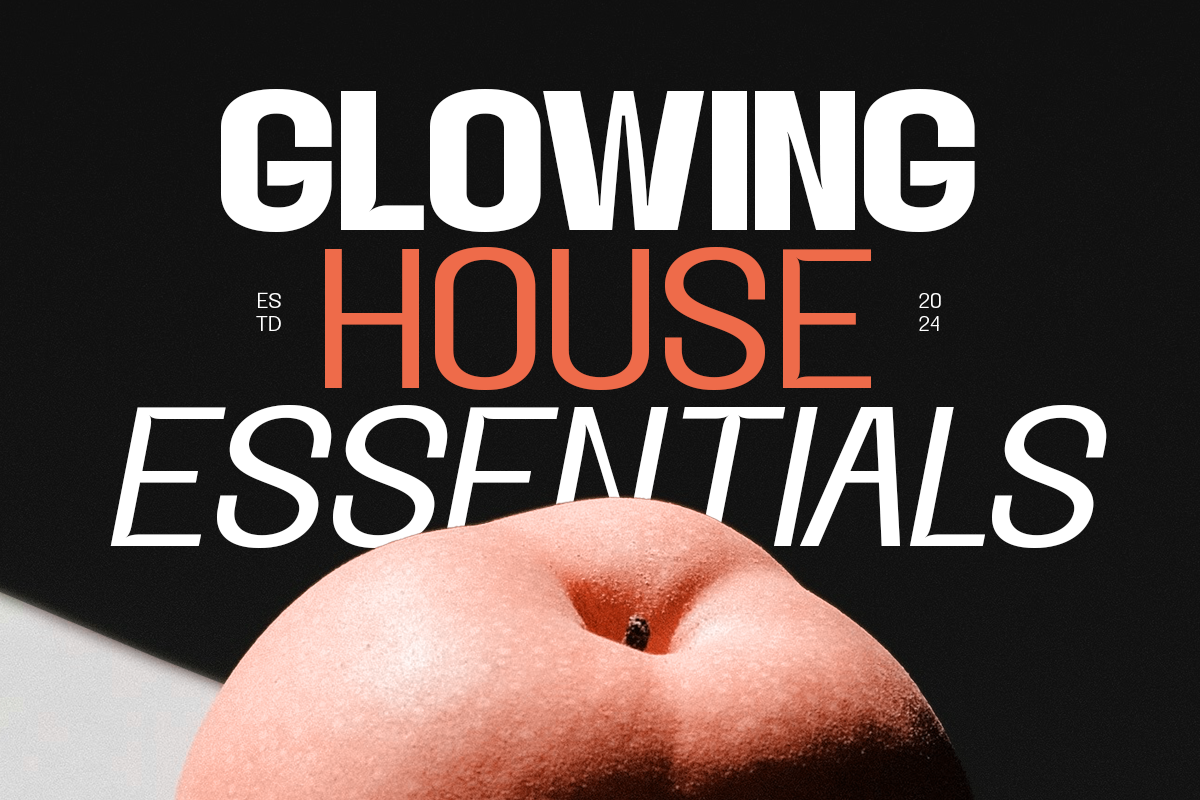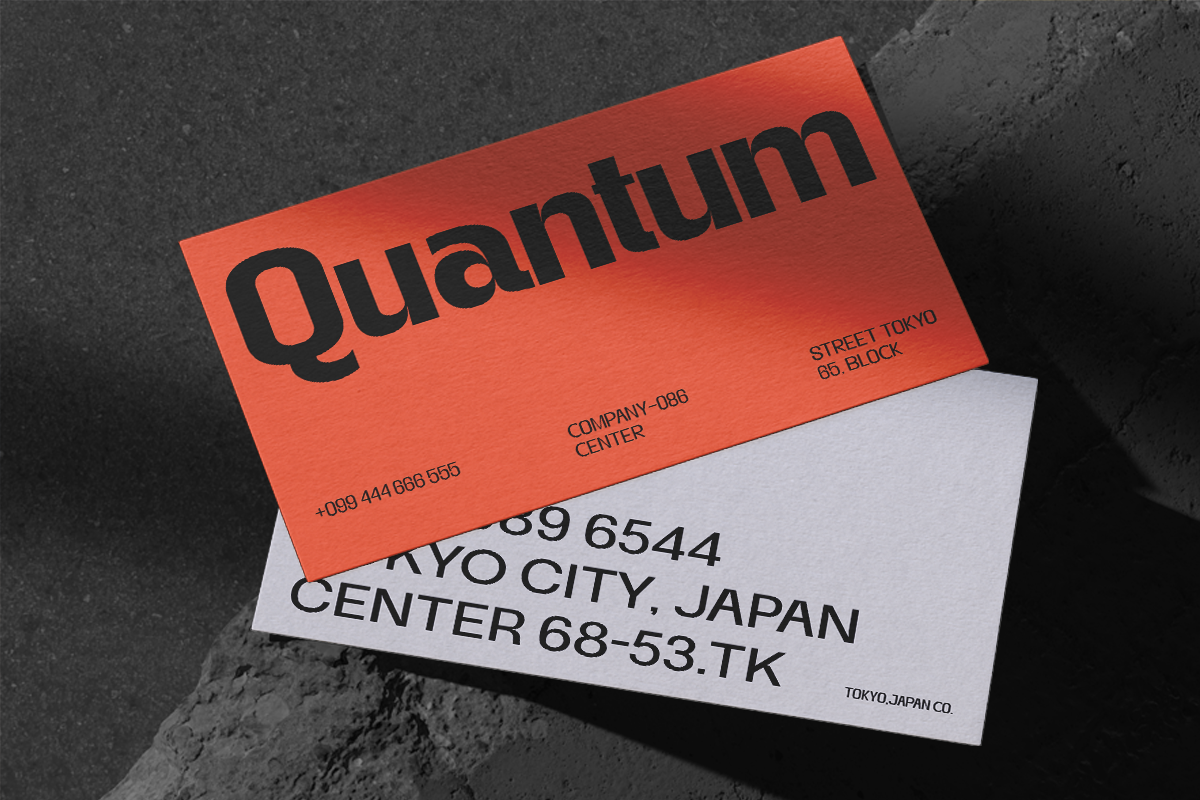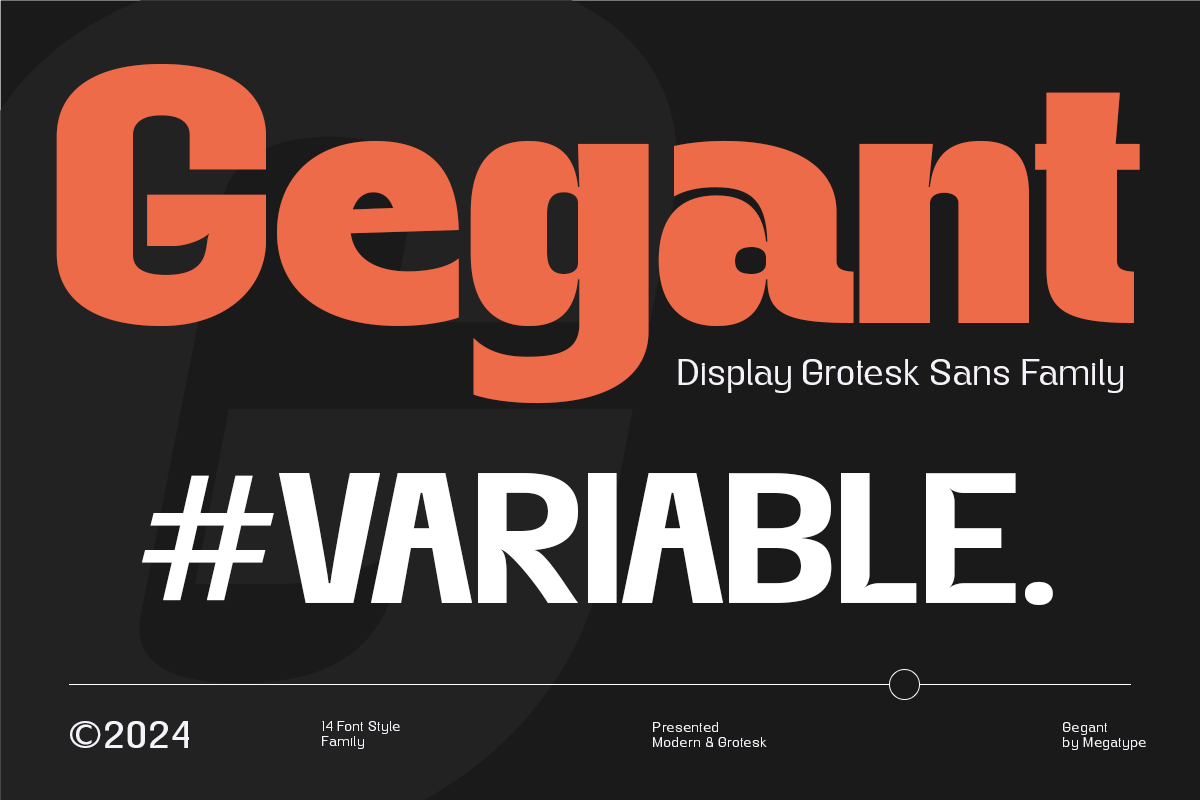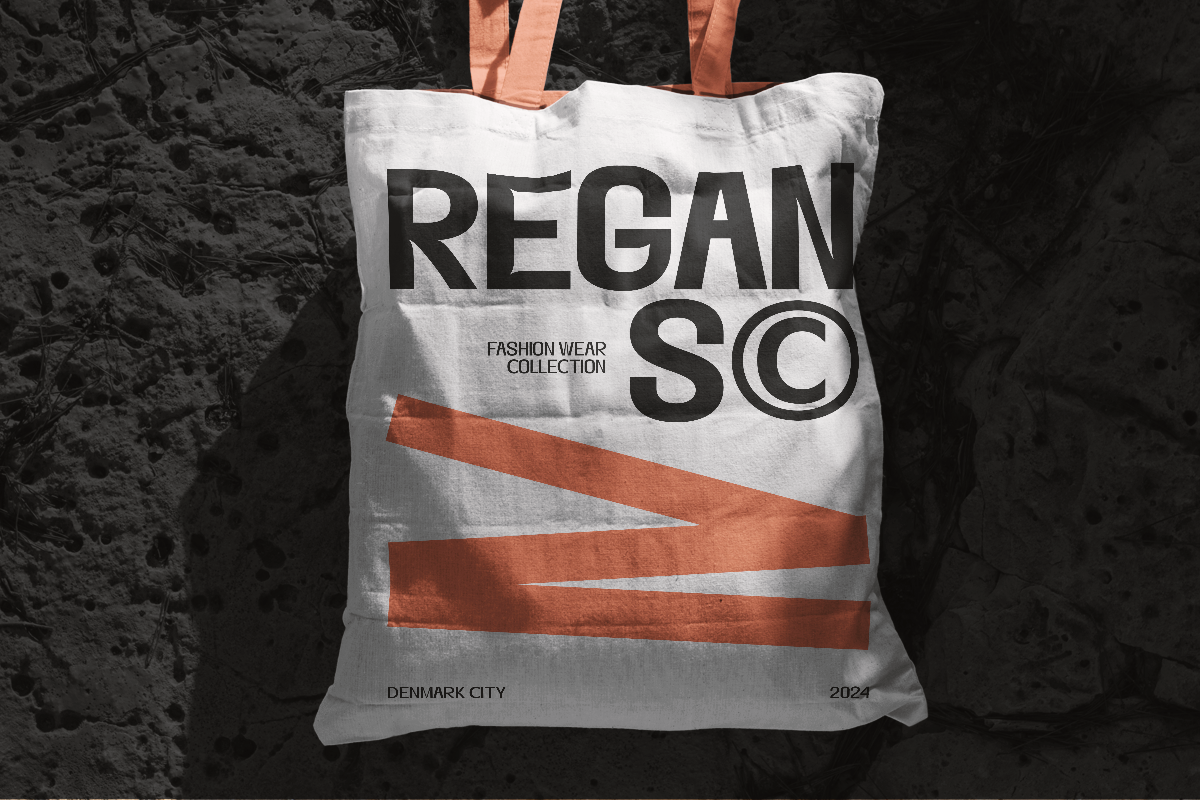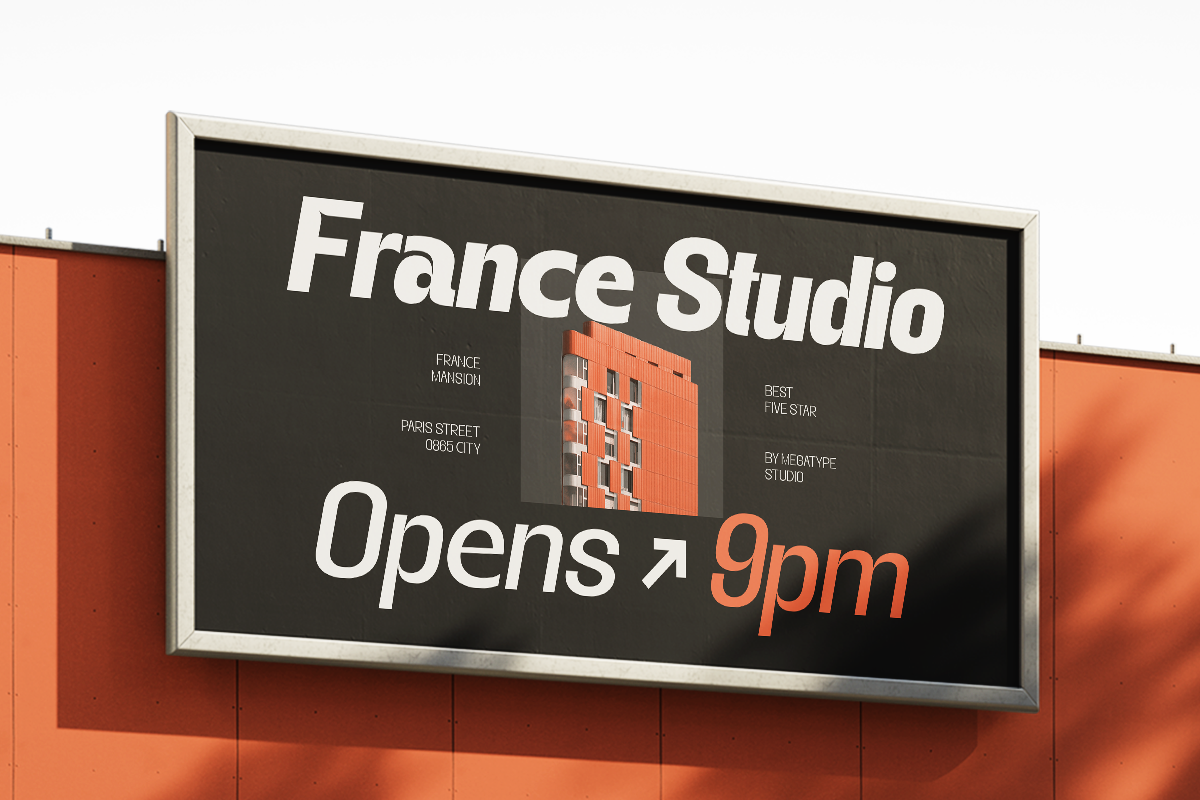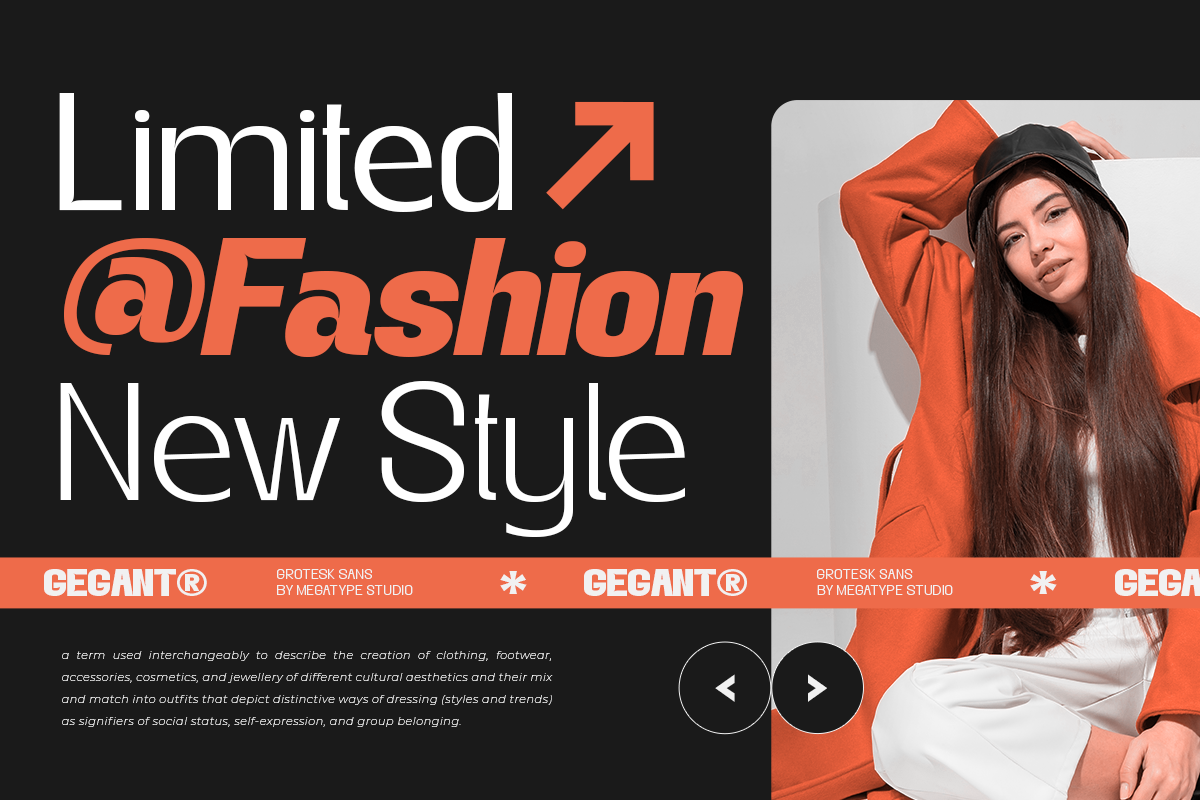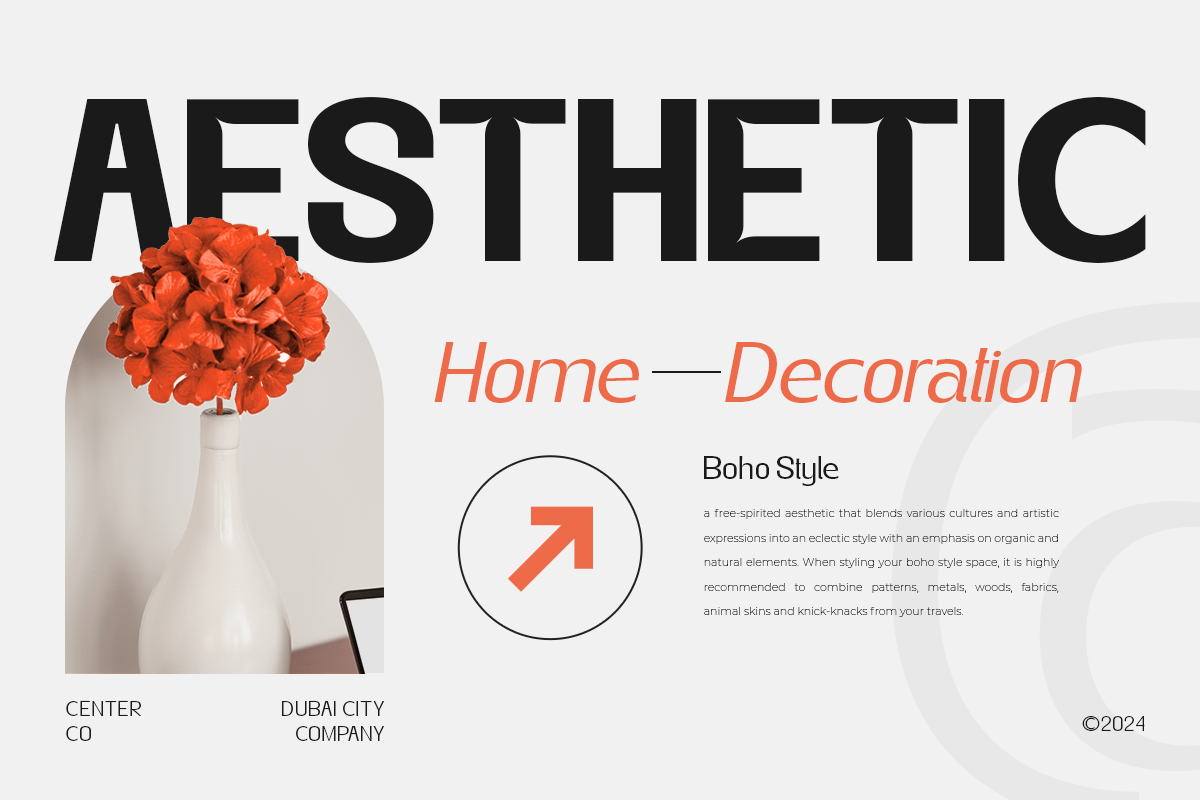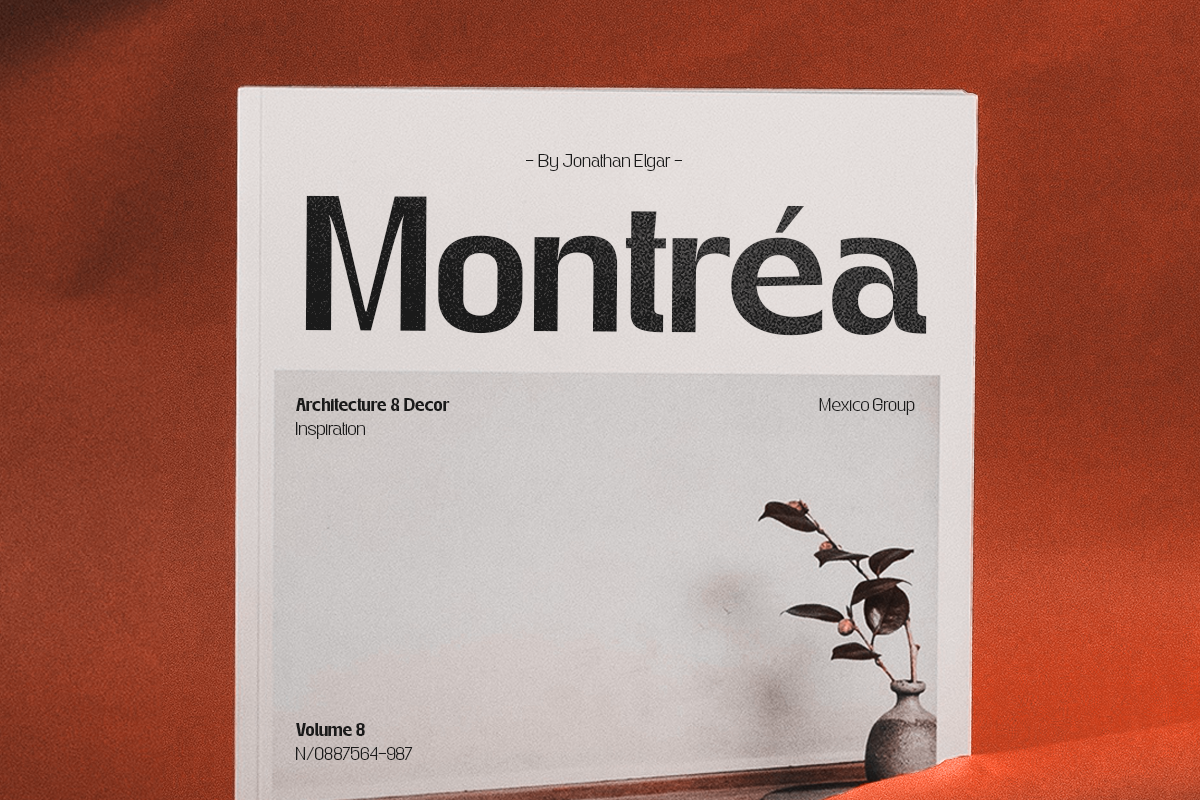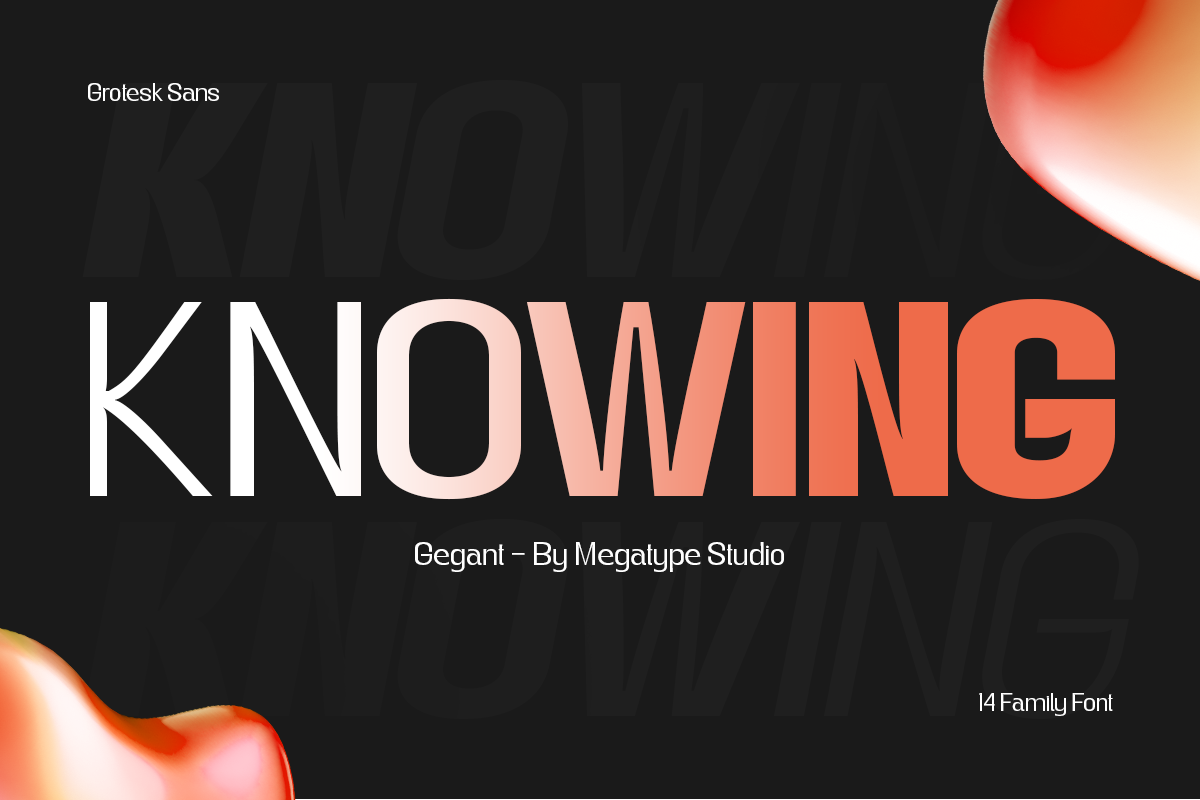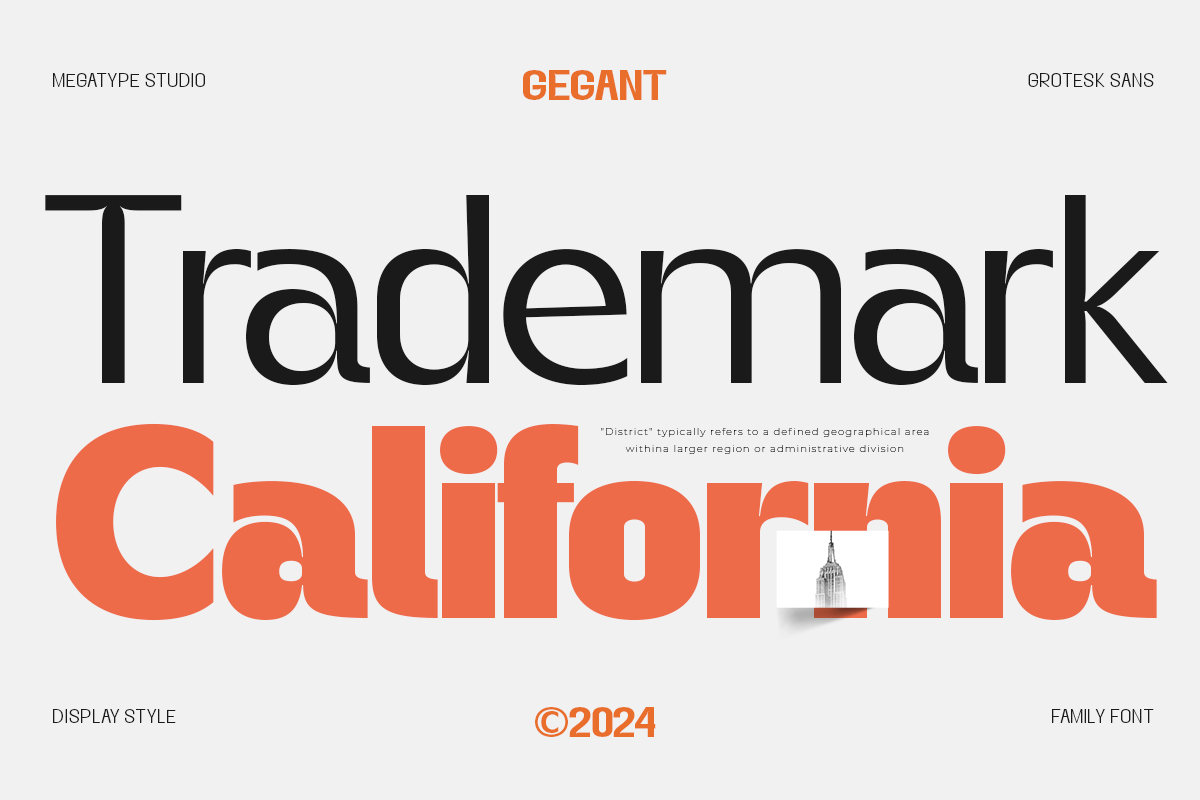
Gegant Font
Gegant is a modern grotesque sans family, comes in seven weights plus matching italics. Gegant is designed with soft curves and simple Geometry with nuances that add warmth but are firm to fulfill the desire for unknown, strange and unusual character shapes.
Gegant is the perfect choice for branding, magazines, posters, advertising, packaging, headlines, logos, web, print media, etc.
- 14 styles: 7 uprights and matching italics.
- 380 glyphs.